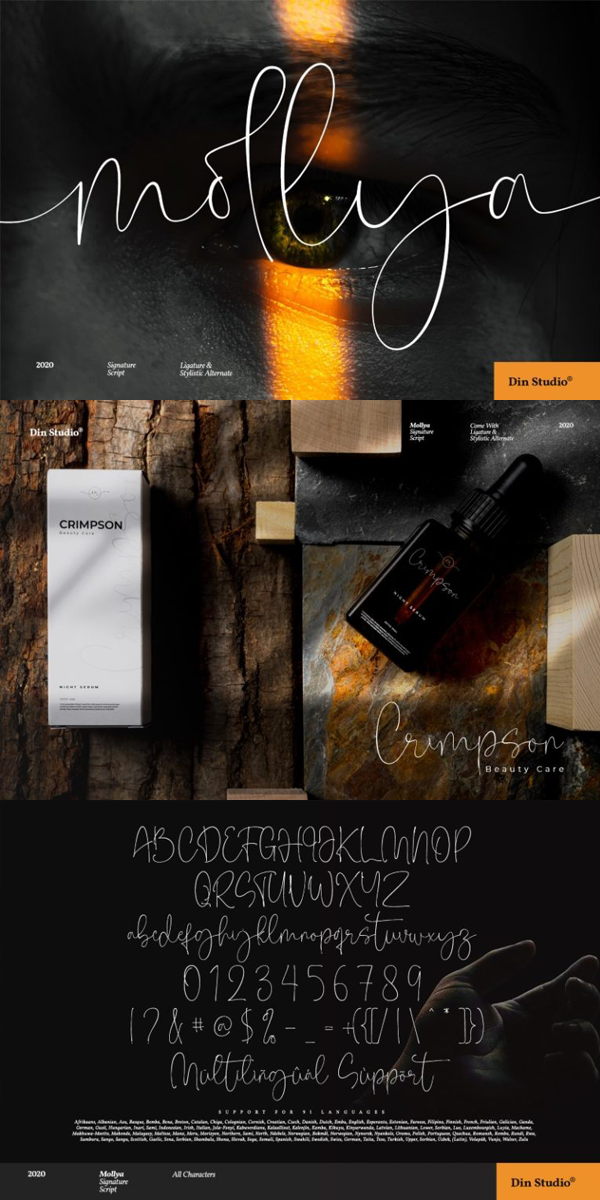
Molya Font
About Molya
Mollya is a signature typeface that comes with elegant themes created by Din Studio. It is so suitable for greeting cards, branding materials, business cards, quotes, print, t-shirt, mug, merchandise, packaging, posters, and so much more! See the previews above to get some inspiration on how you can use them. And happy designing.